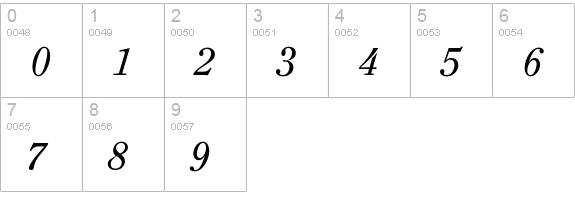
Bondoline Font Details
Bondoline font is a stunning and elegant typeface that exudes sophistication and charm. With its classic yet modern design, this font is perfect for a wide range of projects, from branding to invitations to editorial design. The graceful curves and unique letterforms of Bondoline make it a versatile choice for any design need. What sets Bondoline font apart is not only its beauty but also its accessibility. This font is available for free download at FontsMarket.com, making it easy for designers and creatives to access and use in their projects. Whether you're a seasoned designer or just starting out, Bondoline font is a valuable addition to your font library. Embrace the timeless elegance of Bondoline font and elevate your designs with its refined aesthetic. Download it for free today at FontsMarket.com and bring a touch of sophistication to your next project.